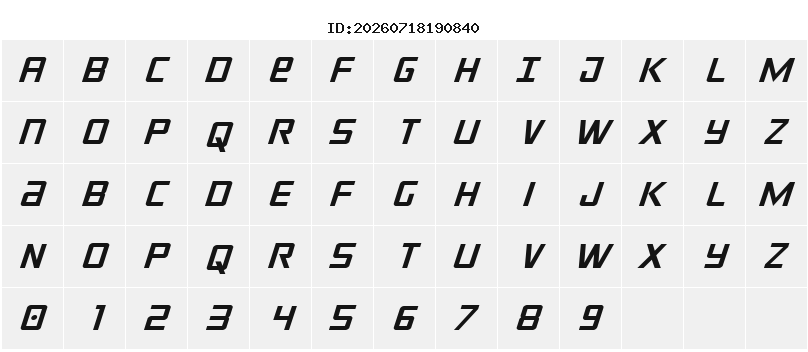
Crixus Expanded Italic Preview
• Font Name: Crixus Expanded Italic
• Font Style: Expanded Italic
• Full Font Name: Crixus Expanded Italic
About Crixus Expanded Italic.ttf
Crixus Expanded Italic.ttf is a modern, elegant sans-serif font designed for ultimate readability and visual harmony. Perfect for branding, headlines, web design, and print materials.